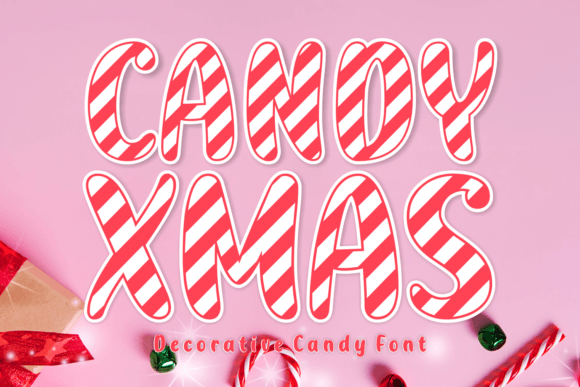
Are you ready to add a touch of magic to your designs? Introducing Candy Xmas Font, a stunning decorative font designed by the talented Riman from 7NTypes. This font is the perfect choice for anyone looking to create eye-catching book covers and more.
With its unique and playful design, Candy Xmas Font will instantly captivate your audience. It exudes a festive charm that perfectly complements the holiday season, making it an ideal addition to your fonts' library. Whether you're crafting a whimsical children's book cover or a cheerful greeting card, this font will take your creations to the next level.
One of the standout features of Candy Xmas Font is its versatility. It effortlessly transforms any project into a visual masterpiece. From Christmas-themed designs to winter wonderlands, this font adds a touch of elegance and joy. Its creative curves and intricate details will make your text come alive, leaving a lasting impression on your viewers.
But that's not all! Candy Xmas Font is packed with emotional appeal. Its enchanting strokes evoke a sense of warmth, nostalgia, and excitement. Imagine the sheer delight your audience will feel when they lay eyes on your beautifully designed book cover. It's like a sweet treat for their eyes, capturing their attention and drawing them closer to your work.